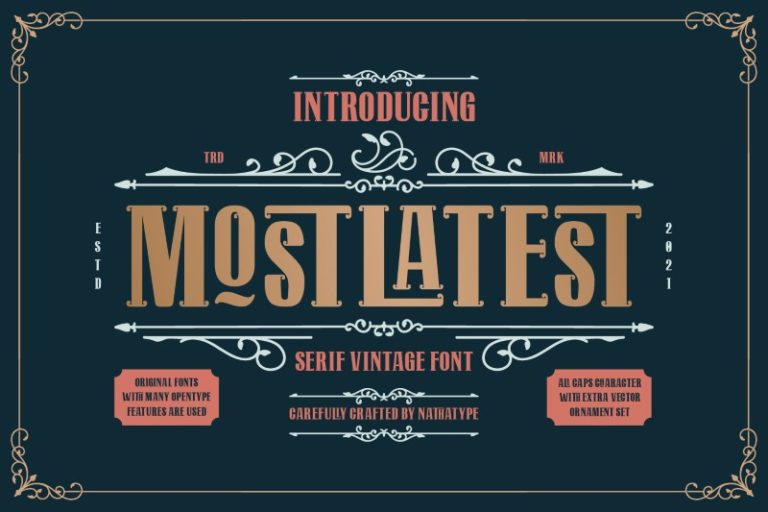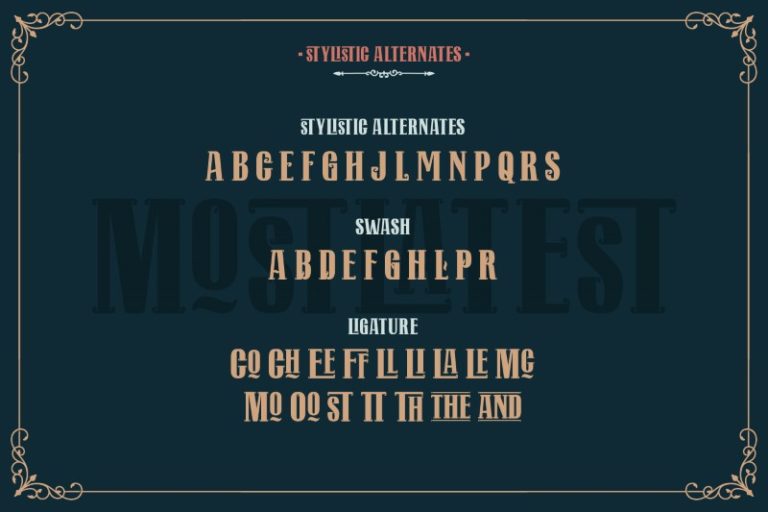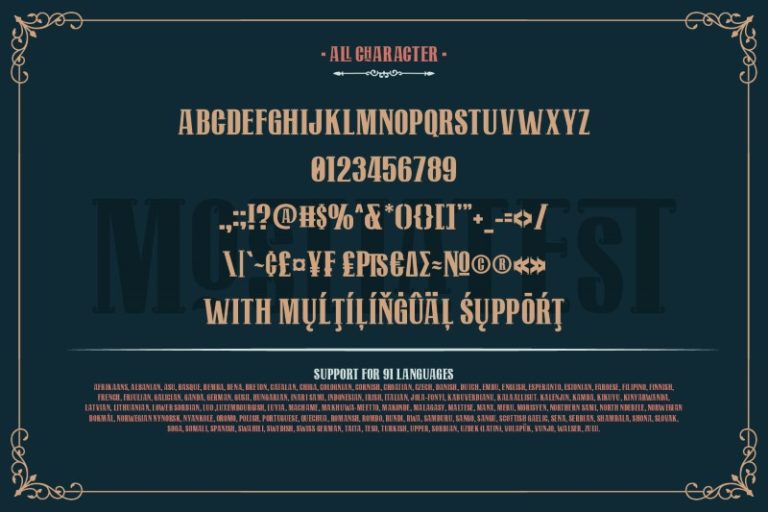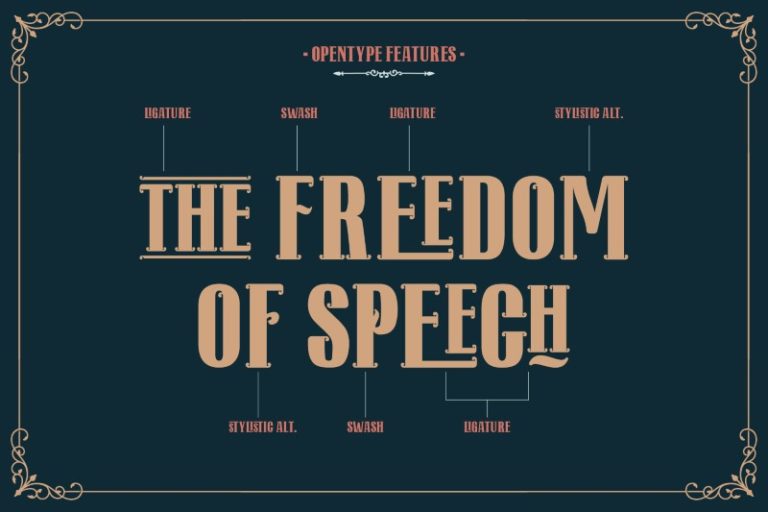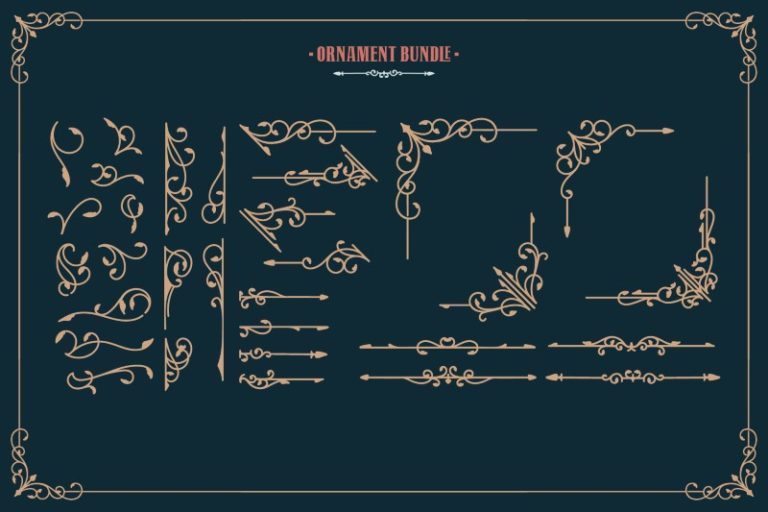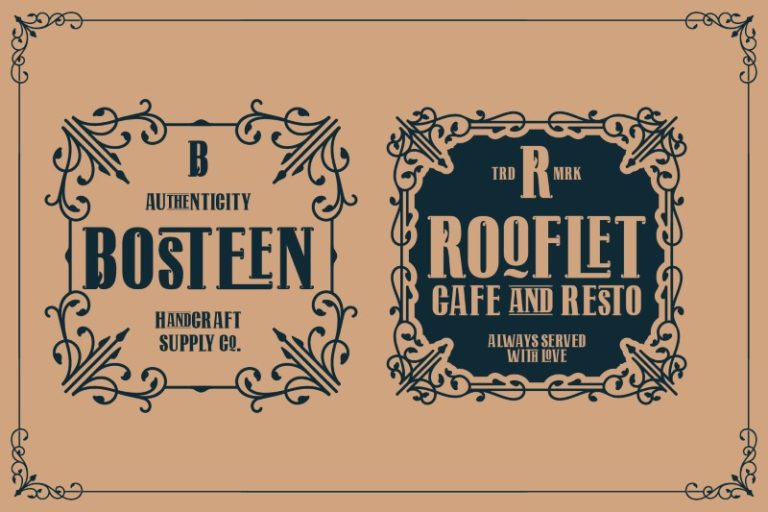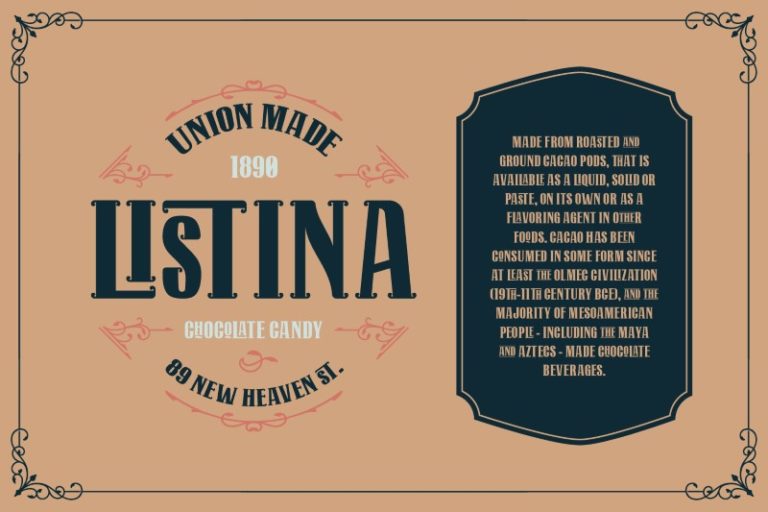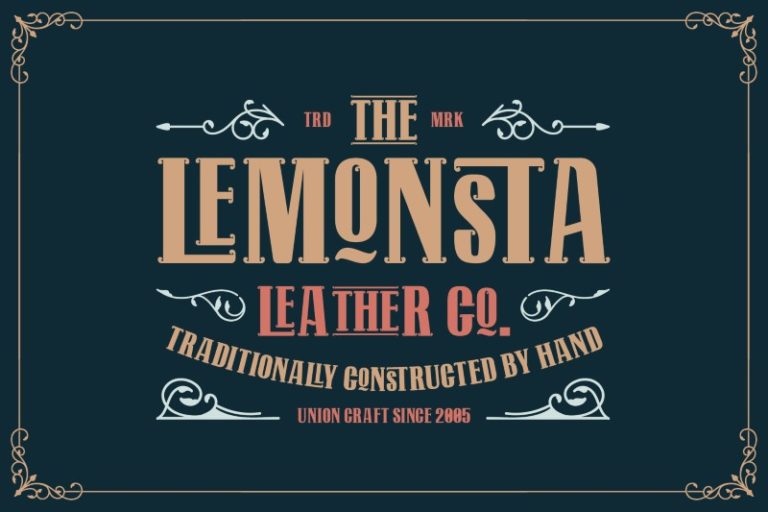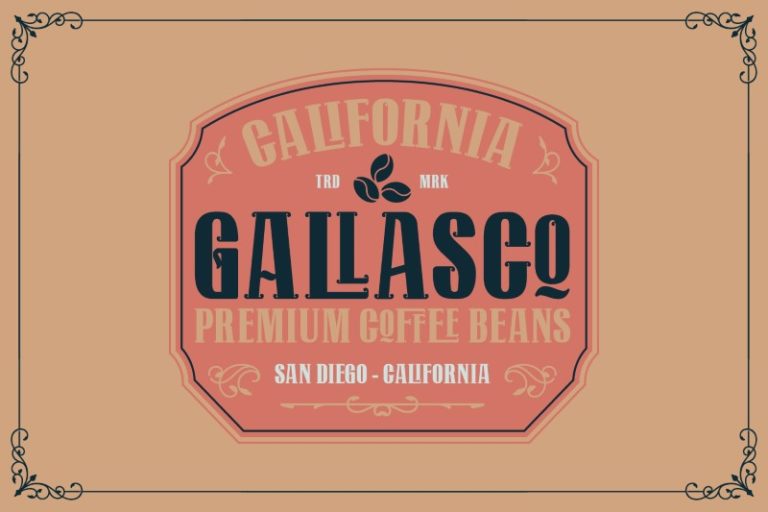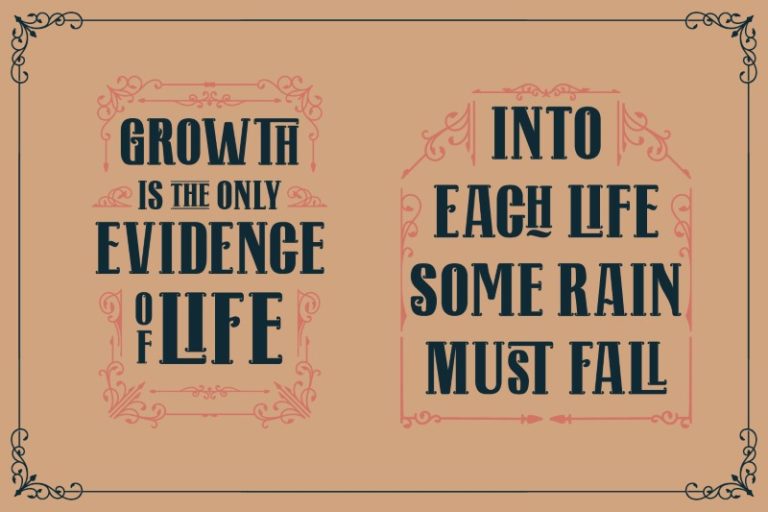
Mostlatest – Vintage Display Serif Font
Mostlatest
Mostlatest ornament
Mostlatest – A Vintage Font
Mostlatest vintage font is a typeface that is made all characters in uppercase. An excellent choice to add the right amount of retro touch. This typeface with artistic style looks very interesting for loads of different projects and promotions. A great all-in-one package for your logo, book cover, poster, t-shirt, branding, and advertisement needs.
The font created by Din Studio. This font support multilingual, ligatures, swashes, alternates, numerals and punctuation.
Features :
- Ligatures
- Alternates
- Swashes
- Bonus Ornament
- Numerals and Punctuation